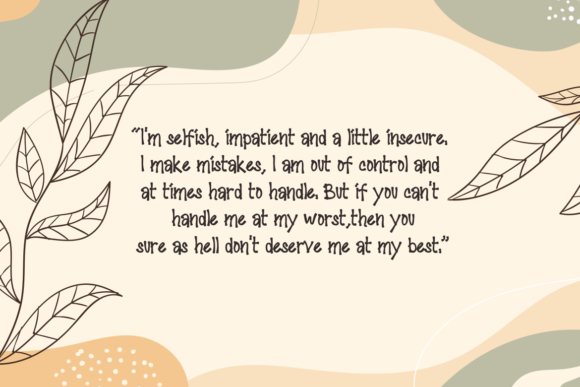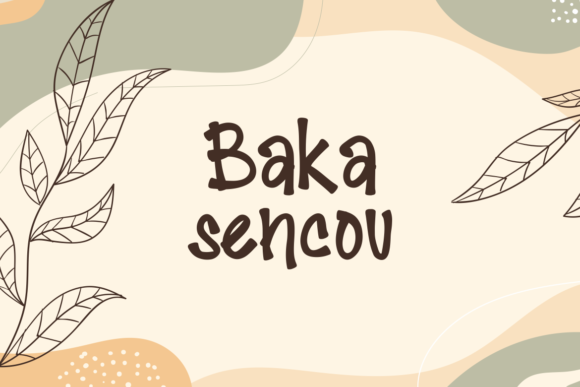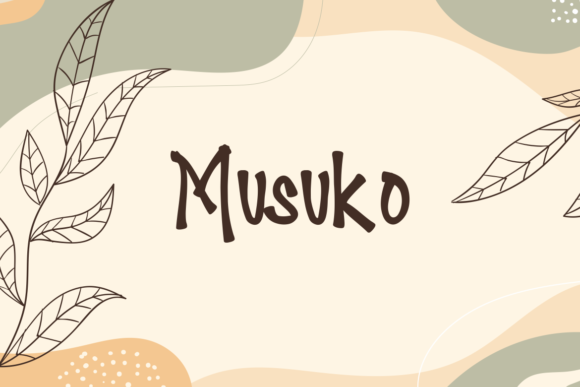
Introducing Gabbriele Font: The Perfect Handwritten Companion for Designers and Crafters
In the world of design, a font can make all the difference. It can elevate a project from ordinary to extraordinary, convey emotions, and add a personal touch. For designers and crafters looking for a unique and versatile font, Gabbriele Font is an excellent choice. This original handwritten font is perfect for a wide range of applications, from templates and presentations to books, gifts, packaging, name tags, and more.
The Charm of Gabbriele Font
Gabbriele Font boasts a charming, handcrafted feel that instantly adds a touch of personality to any project. Its handwritten style is reminiscent of a personal letter or a heartfelt note, making it ideal for designs that require a human touch. The font’s unique character and subtle imperfections give it a distinctive look that sets it apart from more traditional fonts.
One of the standout features of Gabbriele Font is its incredible versatility. Whether you’re working on a template, presentation, book, or gift, this font adapts seamlessly to any design. Its clear and readable style makes it perfect for body text, while its elegant and cursive feel makes it suitable for headings and titles.
Perfect for Designers
For designers, Gabbriele Font offers endless possibilities. Use it to:
- Create stunning templates for social media, blogs, or websites
- Design eye-catching presentations that engage and inspire
- Develop unique branding materials, such as logos, business cards, and letterheads
- Enhance your portfolio with a personal touch
Perfect for Crafters
For crafters, Gabbriele Font is a dream come true. Use it to:
- Personalize gifts, such as mugs, t-shirts, and tote bags
- Create beautiful packaging for your handmade products
- Design custom name tags, labels, and stickers
- Add a touch of elegance to your scrapbooking and journaling projects
Why Choose Gabbriele Font?
With so many fonts available, why choose Gabbriele Font? Here are just a few reasons:
- Unique and original: Gabbriele Font is a one-of-a-kind font that will set your designs apart from the rest.
- Highly versatile: This font can be used for a wide range of applications, from digital designs to print materials.
- Easy to read: Gabbriele Font is clear, readable, and easy to understand, making it perfect for body text and headings.
- Handcrafted with love: This font is carefully crafted with attention to detail, giving it a personal and human touch.
Get Creative with Gabbriele Font
Ready to unleash your creativity with Gabbriele Font? Whether you’re a designer, crafter, or DIY enthusiast, this font is sure to inspire. With its unique character, versatility, and handcrafted feel, Gabbriele Font is the perfect companion for any project.